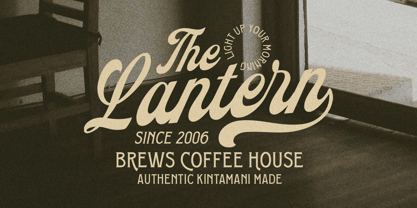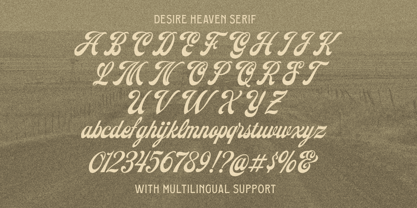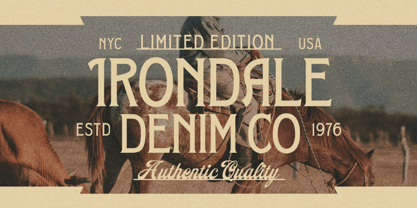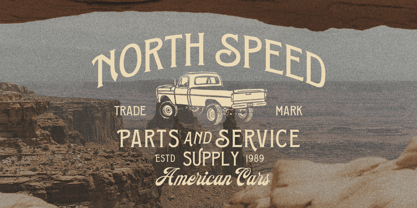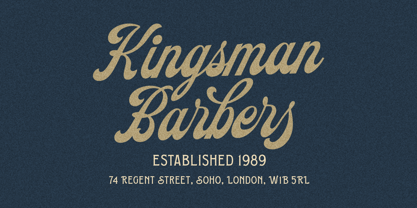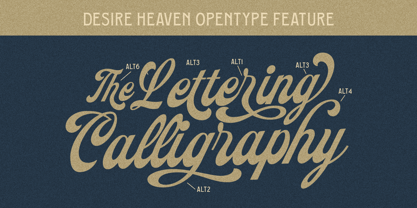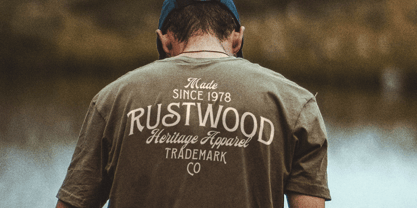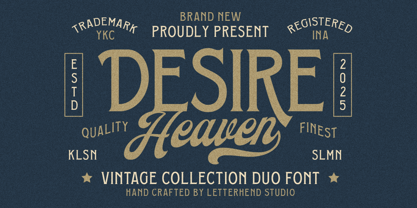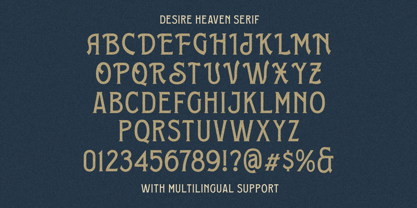
Desire Heaven
by Letterhend
The Desire Heaven Font Family was designed by Hendry Juanda and published by Letterhend. Desire Heaven contains 2 styles and family package options.
This duo is your secret combo. The Desire Heaven Vintage Collection Duo Font effortlessly blends a bold, stately serif for commanding headlines with a gorgeous, flowing script for a touch of refined elegance. Imagine the authentic, high-quality look of premium mid-20th century American signage or classic spirit labels—that’s the vibe. It’s the perfect, sophisticated pairing for creating powerful logos, and upscale branding that demands attention. Features : Uppercase & lowercase Numbers and punctuation Alternates & Ligatures Multilingual Support PUA encoded